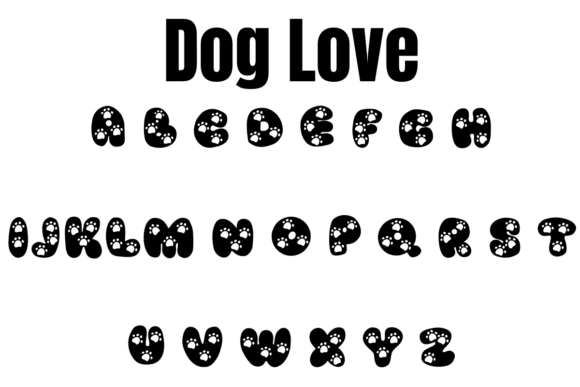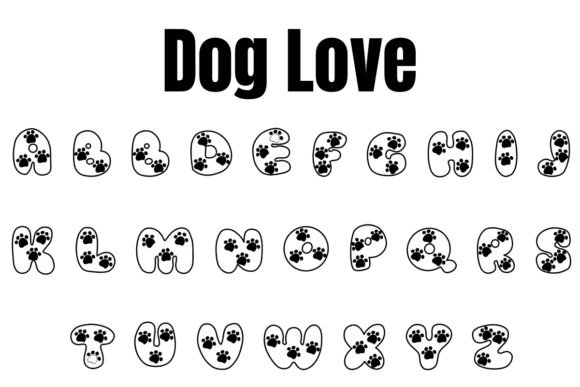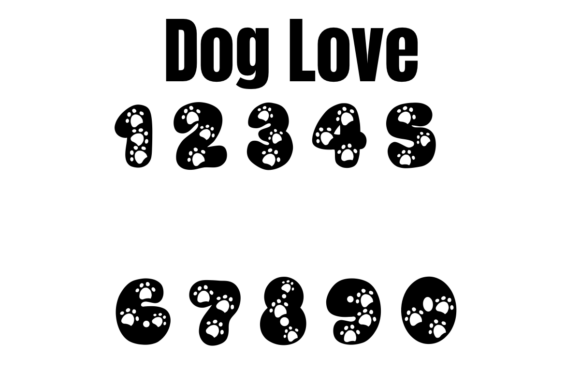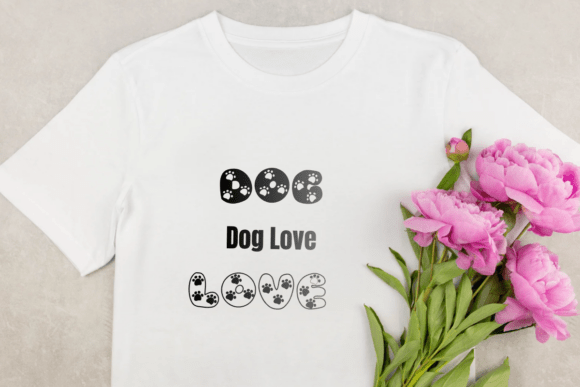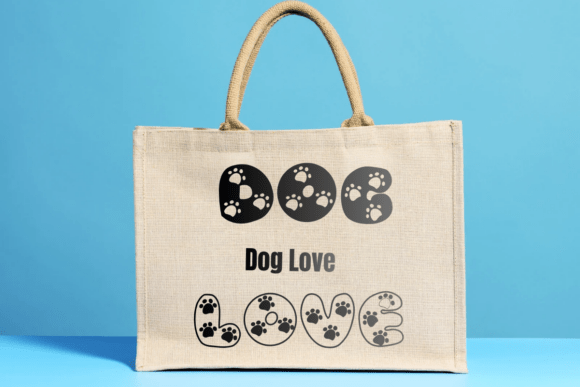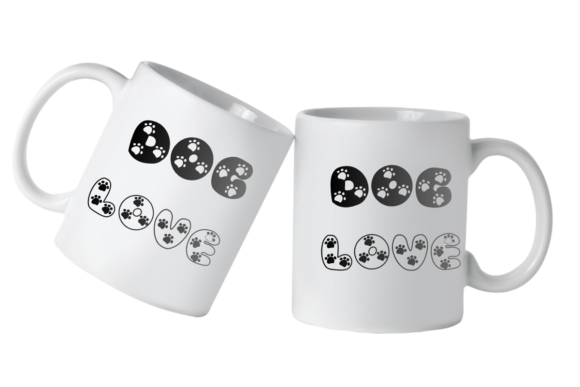
Capture the Hearts of Pet Parents Everywhere with Dog Love Font
Are you a canine enthusiast looking for a unique and playful way to express your love for dogs? Look no further than the Dog Love font, the ultimate decorative font for dog lovers. This adorable font features ultra-bold, bubbly letterforms that are uniquely patterned with cute paw print cutouts, making every word a tribute to our four-legged friends.
The Perfect Font for Dog Enthusiasts
The Dog Love typeface is designed to capture the hearts of pet parents everywhere. Its thick, rounded silhouette ensures high visibility on various platforms, from social media graphics to physical merchandise. Whether you’re designing for a rescue shelter, a boutique pet shop, or simply creating custom pet apparel, the Dog Love font adds an instant “paws-itive” vibe to your branding.
The Dog Love font is incredibly versatile, making it perfect for a wide range of design projects. Here are some ideas to get you started:
- Custom Pet Apparel: Create adorable dog t-shirts, hoodies, or pet beds with the Dog Love font. It’s a great way to showcase your love for dogs and make a fashion statement.
- Vet Clinic Signage: Add a personal touch to your vet clinic’s signage with the Dog Love font. It’s a great way to create a welcoming atmosphere for pet owners and their furry friends.
- Personalized Dog Bowl Decals: Make a thoughtful gift for dog owners with customized dog bowl decals featuring the Dog Love font.
- Social Media Graphics: Create engaging social media graphics, such as dog quotes, funny memes, or cute illustrations, with the Dog Love font.
Why Choose the Dog Love Font?
The Dog Love font offers several benefits that make it a top choice for designers and crafters:
- Unique and Playful Design: The Dog Love font features a one-of-a-kind design that’s sure to stand out from the crowd.
- High Visibility: The thick, rounded silhouette of the Dog Love font ensures high visibility on various platforms.
- Easy to Read: Despite its playful design, the Dog Love font is easy to read, making it perfect for use on a wide range of materials.
- Instant Brand Recognition: The Dog Love font adds an instant “paws-itive” vibe to your branding, making it perfect for businesses that cater to dog owners.
Unleash Your Creativity with Dog Love Font
The Dog Love font is more than just a font – it’s a way to express your passion for dogs and connect with fellow canine enthusiasts. Whether you’re a designer, crafter, or simply a dog lover, this font is sure to inspire you to create something truly special.
In conclusion, the Dog Love font is a must-have for any dog enthusiast or designer looking to create dog-themed projects. Its unique and playful design, high visibility, and ease of use make it perfect for a wide range of applications. So go ahead, capture the hearts of pet parents everywhere with the Dog Love font, and share your passion for pups with the world.